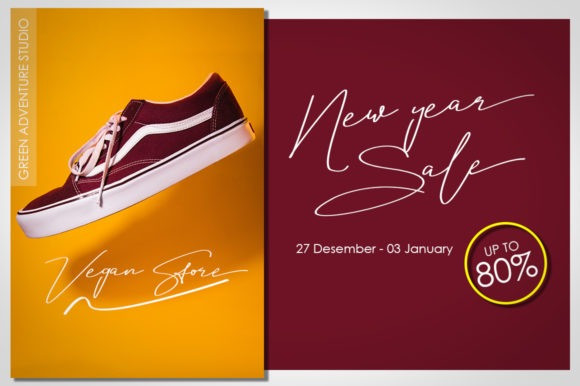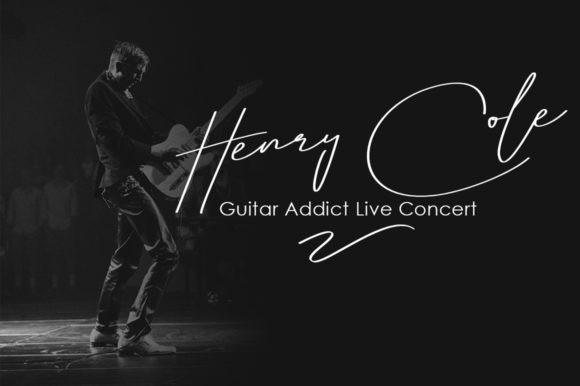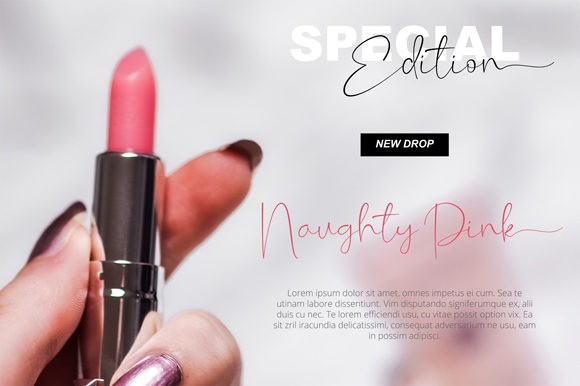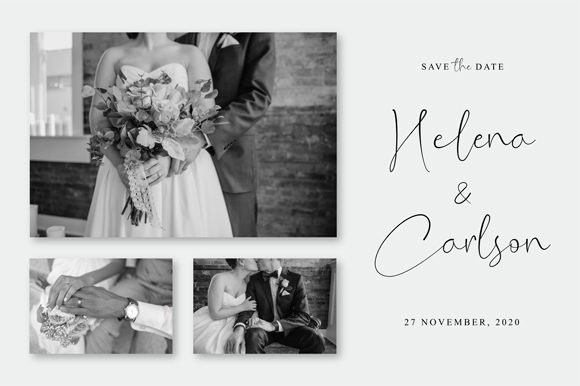
Gillingham Signature Font
Gillingham Font  a new natural script with a handwritten and script style make this font looks elegant, natural, stylish .
Gillingham Font would perfect for invitation, logos & branding , photography,
advertisements, watermark, social media posts, product packaging,
product designs, label, wedding designs, stationery, special events or
anything that need handwriting taste.